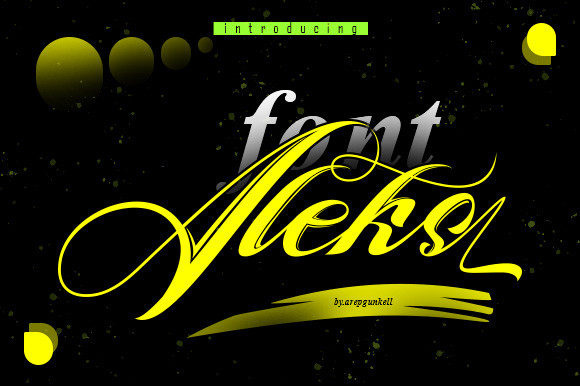
The Magic of Aleks Font: Elevating Your Designs with Elegance
I still remember the time I was working on a wedding invitation project, and my client asked for a font that would make their special day feel like a fairytale. I scoured the internet, tried countless fonts, but nothing seemed quite right. That was until I stumbled upon Aleks Font. Its romantic, calligraphic strokes and dancing characters instantly captured the whimsical feel I was looking for. In this article, I’ll share my love for Aleks Font, its features, and how you can make the most of it in your design projects.
An Honest Review of Aleks Font
• ✨ Elegant and Classy: Aleks Font adds a touch of sophistication to any design project.
• ✅ Romantic and Whimsical: Its calligraphic style makes it perfect for projects that require a personal touch.
• 💃 Dancing Characters: The way characters dance along the baseline gives Aleks Font a unique and playful feel.
While Aleks Font is a beautiful typeface, there are a few things to keep in mind:
• 🤔 Legibility at Small Sizes: Aleks Font can be a bit tricky to read at very small sizes, so it’s best used for headlines or larger text.
• ⚠️ Pairing with Other Fonts: Due to its distinctive style, Aleks Font can be a bit challenging to pair with other fonts. Stick to simple, clean fonts for the best results.
The Story Behind Aleks Font
Aleks Font was designed with love and care by a talented type designer who wanted to create a font that would evoke feelings of romance and whimsy. Inspired by traditional calligraphy, Aleks Font brings a touch of elegance and class to any design project.
Font Name Aleks Font
Q: What type of projects is Aleks Font best suited for?
Aleks Font is perfect for projects that require a touch of elegance and romance, such as wedding invitations, branding, and editorial design.